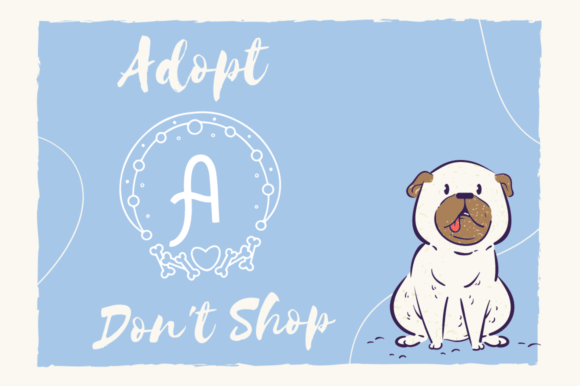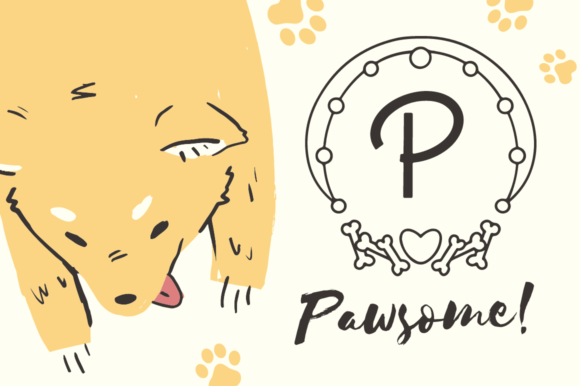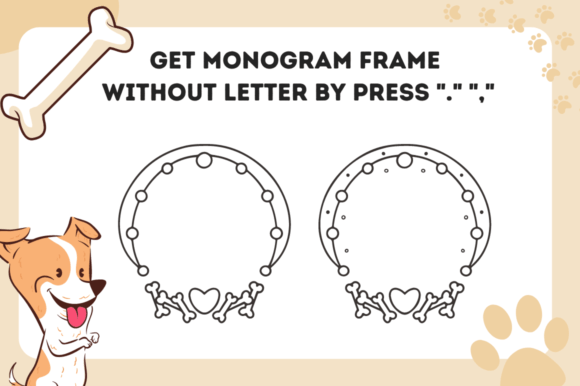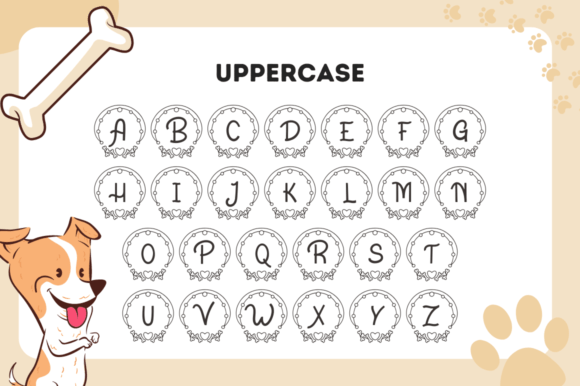
The Adorable World of Bonapet Animal Monogram Font
This cute decorative font, inspired by animals, has become a game-changer for me, and I’m excited to share its charm with you. The Bonapet Animal Monogram Font is perfect for creating custom gifts, including textiles, gifts for kids and homeowners, cat lovers, or anyone with a love of monograms.
A Closer Look: What I Love About Bonapet Animal Monogram Font
Here’s what makes this font truly special:
- ✨ Cute and Playful Designs: The font features adorable animal-inspired monograms that are sure to bring a smile to anyone’s face.
- ✅ Easy to Use: The font comes in two styles, which can be easily switched between by changing between uppercase and lowercase letters.
- 🌈 Versatile: Perfect for various design projects, from custom gifts to digital creations.
While I adore the Bonapet Animal Monogram Font, there are a few things to keep in mind:
- 🤔 Limited Character Set: As a monogram font, it’s designed primarily for single letters or a few special characters. This might limit its use for longer texts.
- ⚠️ Dependence on Uppercase/Lowercase: To access the two different styles, you need to switch between uppercase and lowercase letters, which might require some extra planning in your designs.
The Inspiration Behind Bonapet Animal Monogram Font
While the true origins of the Bonapet Animal Monogram Font remain a mystery, it’s easy to imagine a designer who loves animals and crafting unique gifts. Perhaps they wanted to create a font that would bring joy and whimsy to everyday items, making them special and personalized.
The Bonapet Animal Monogram Font is a delightful addition to any designer’s toolkit, offering a unique blend of cuteness and versatility. Whether you’re creating custom gifts, digital art, or just experimenting with typography, this font is sure to inspire your creativity.